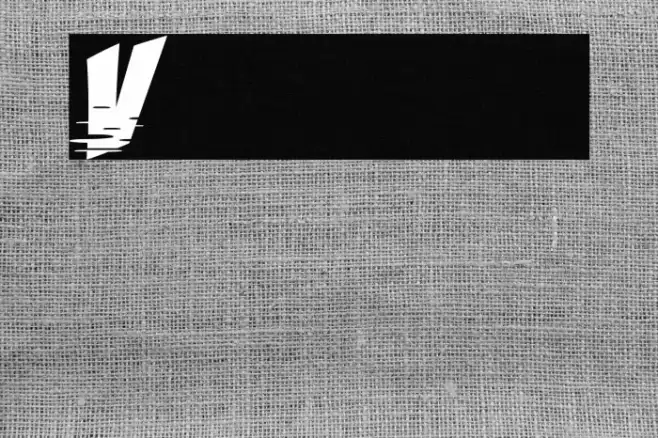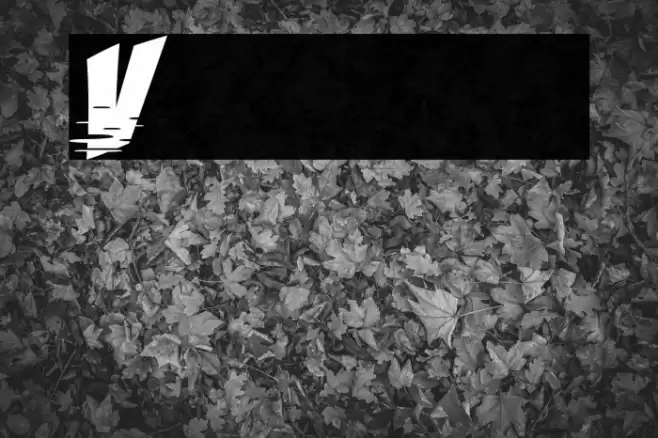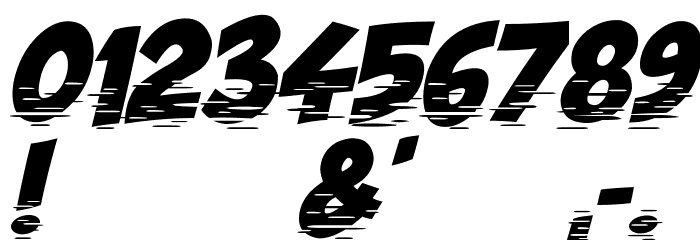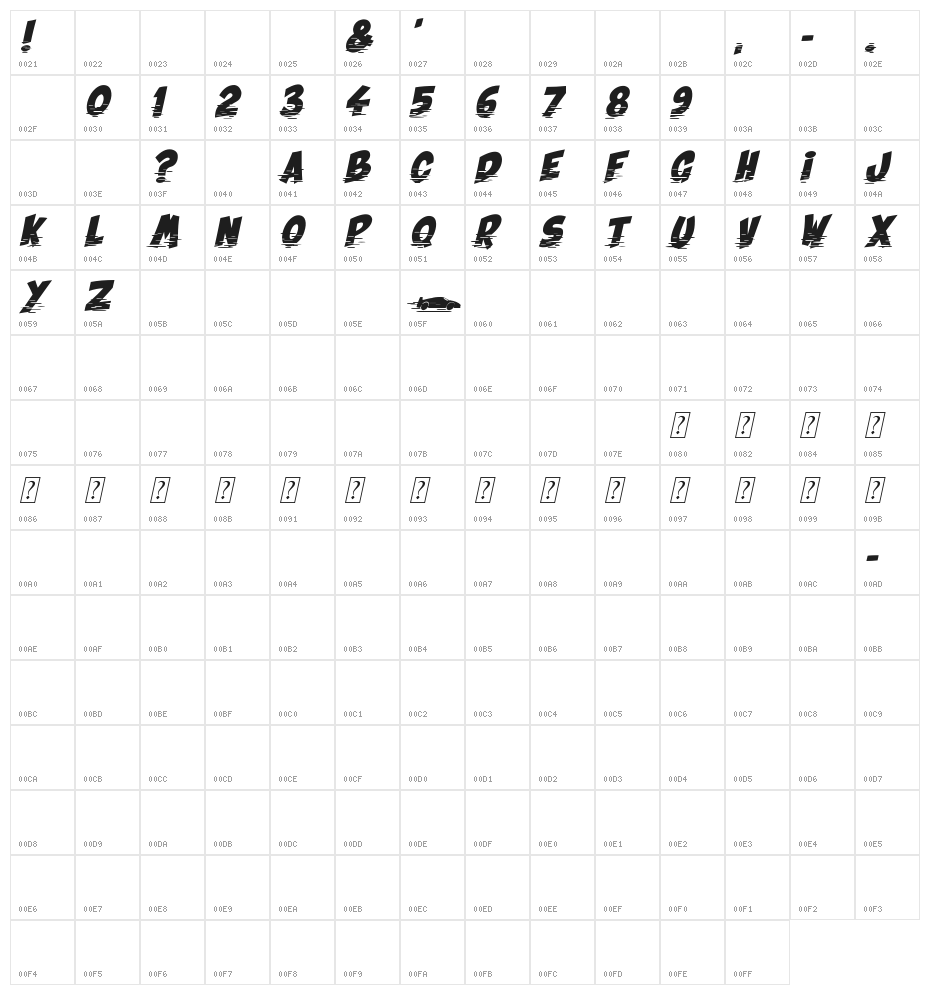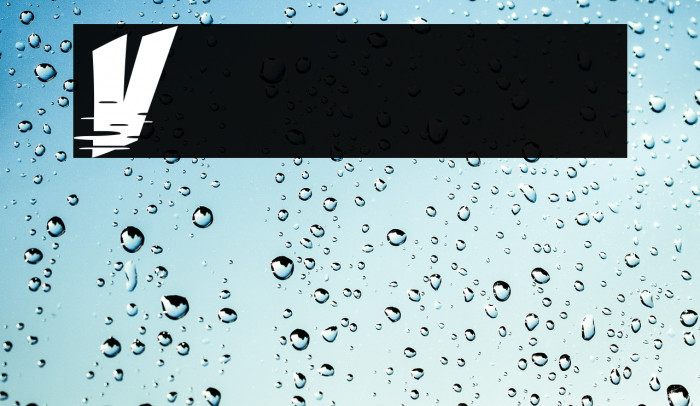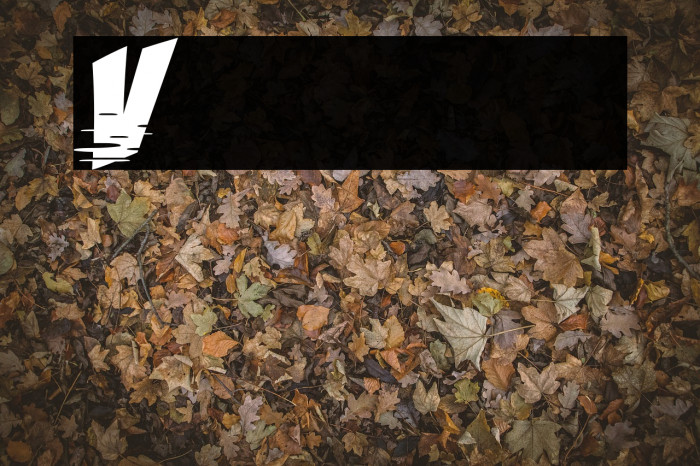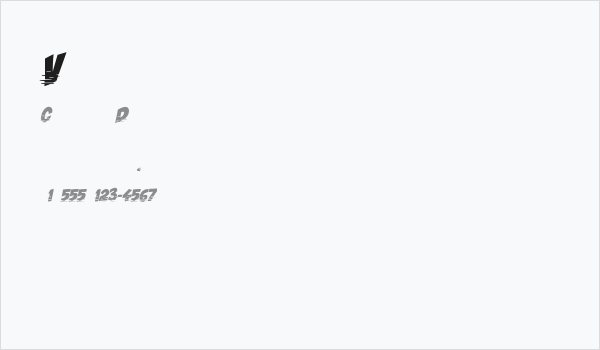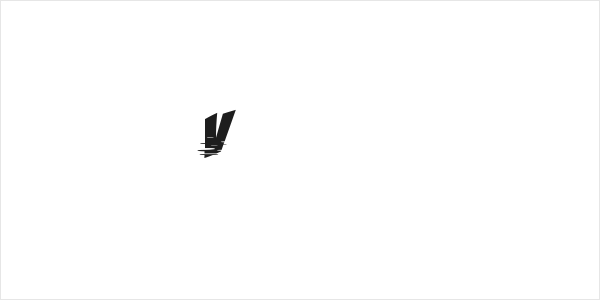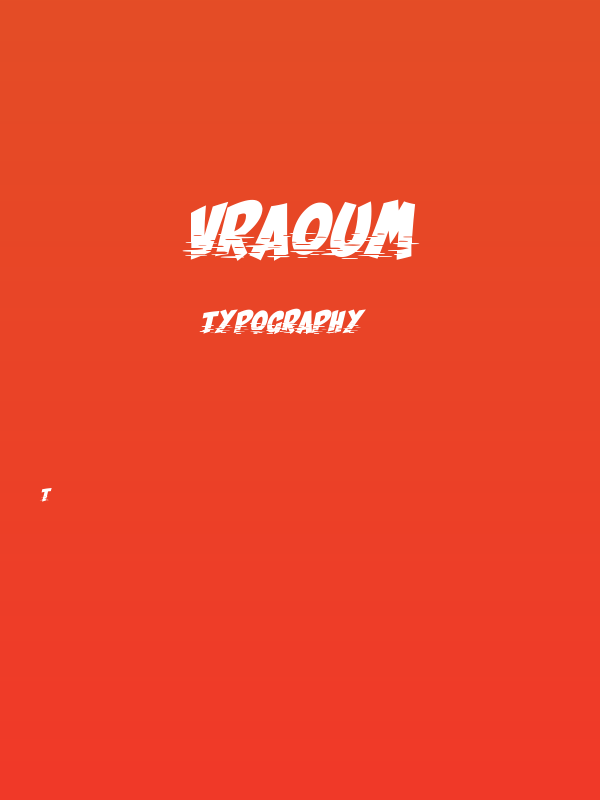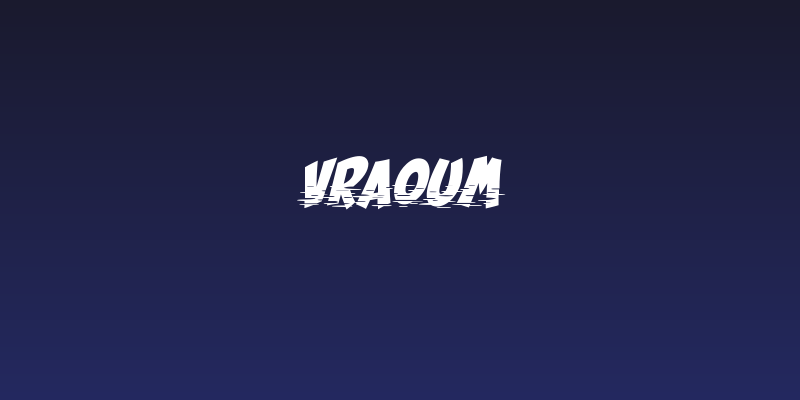
Vraoum Font
Vraoum Description
This dynamic and bold font features a unique, distorted style that gives the impression of motion or speed. The uppercase letters are robust and angular, with a slanted orientation that enhances the sense of movement. The lowercase letters maintain this energetic style, ensuring consistency throughout the typeface. Numbers and special characters follow the same design principles, making them ideal for attention-grabbing displays. The font's playful yet aggressive appearance makes it suitable for projects that require a strong visual impact.
A bold, dynamic font with a distorted, motion-inspired style from Cartoon fonts.
- Proposed Projects: Ideal for comic book titles, action movie posters, video game graphics, and branding for sports or automotive industries.